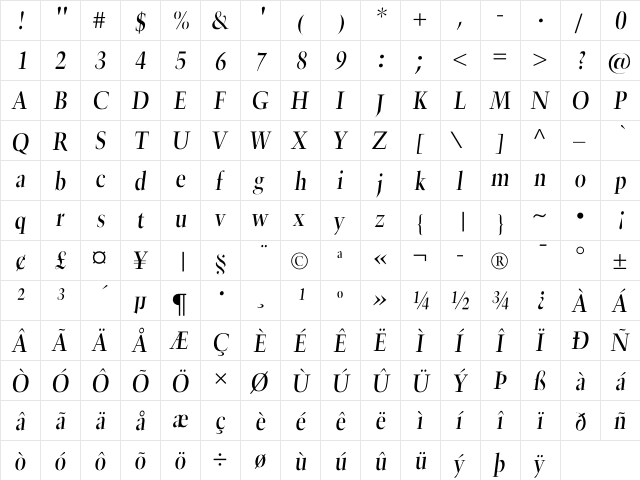
LHF Citizen Italic
| Foundry | John Studden for Letterhead Fonts |
Design Context for LHF Citizen Typeface
LHF Citizen takes a measured approach to typography — its balanced proportions and neutral character make it a reliable workhorse for both digital and print work. The dynamic lean of this cut emphasises speed and emphasis in any layout.
Pro Tip: Use LHF Citizen for emphasis, pull quotes, and subheadings where its slanted energy can add rhythm to the layout.